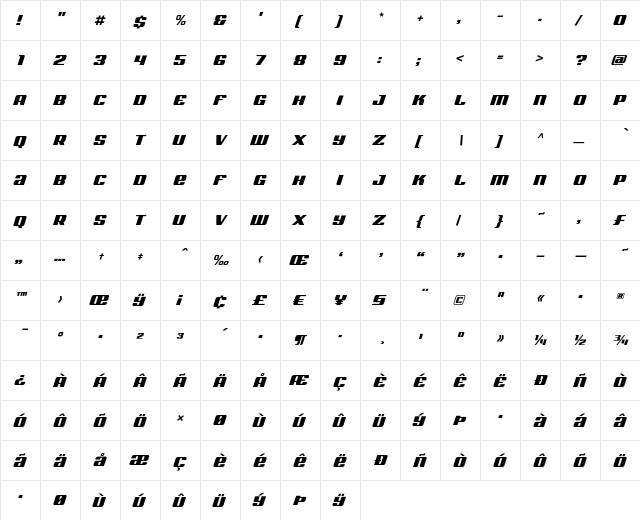
Bullet SmallCaps
Design Context for Bullet Typeface
Bullet offers clean, dependable letterforms without strong stylistic allegiance, making it a practical choice for designers who need flexibility.
Pro Tip: Use Bullet in both headline and body roles to test its range before committing to a single application.